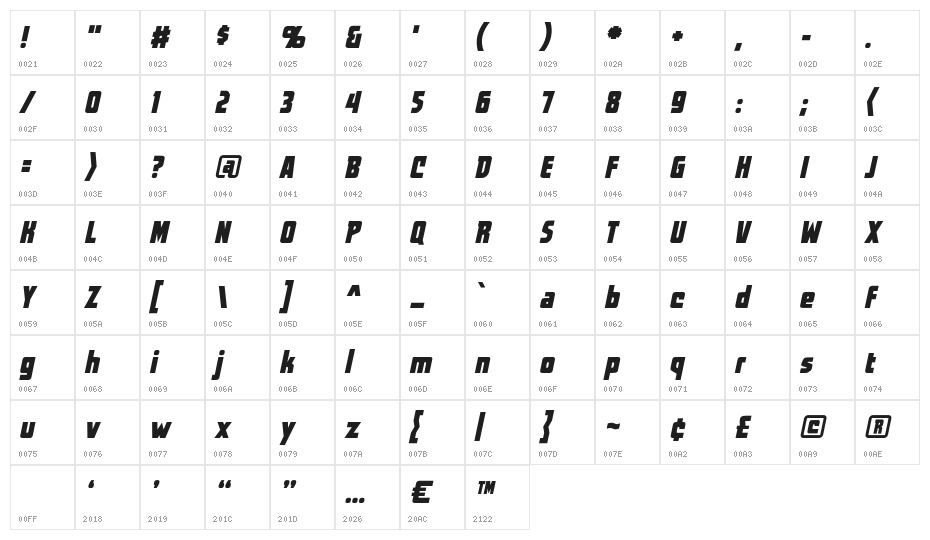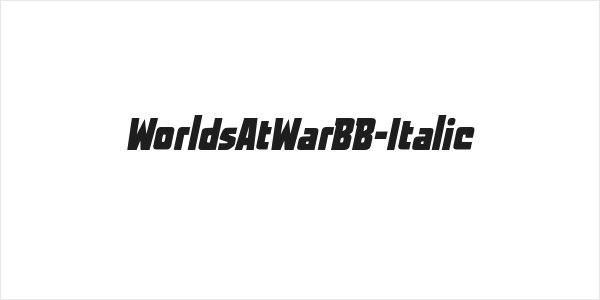
WorldsAtWarBB-Italic Font
WorldsAtWarBB-Italic Description
This font features a bold and dynamic style with a strong italic slant, giving it a sense of motion and urgency. The characters are thick and robust, with sharp angles and a slightly condensed form. The uppercase letters are particularly striking, with a commanding presence that makes them ideal for attention-grabbing headlines. The lowercase letters maintain the same boldness, ensuring consistency across different text sizes. The numerals are clear and easily readable, while the special characters complement the overall design with their bold and assertive appearance.
Proposed ProjectsIdeal for use in action-themed posters, video game titles, sports branding, and dynamic advertising campaigns.